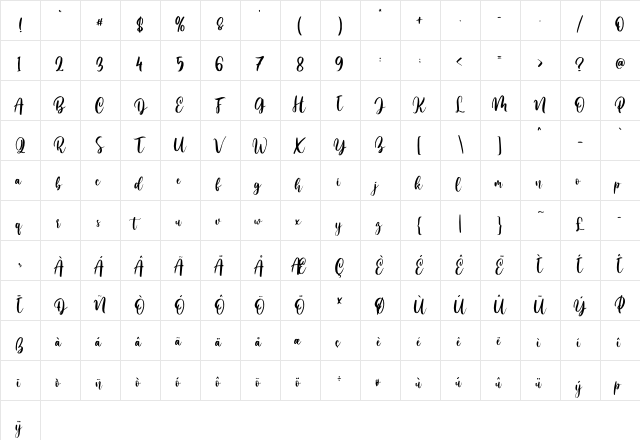
Mellisa Jonathan Regular
| Designer | Donis Miftahudin |
Design Context for Mellisa Jonathan Typeface
Mellisa Jonathan is a composed and adaptable typeface that performs quietly and consistently across a wide range of design contexts.